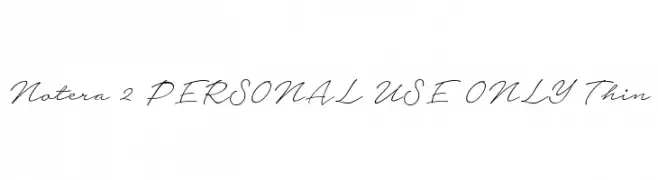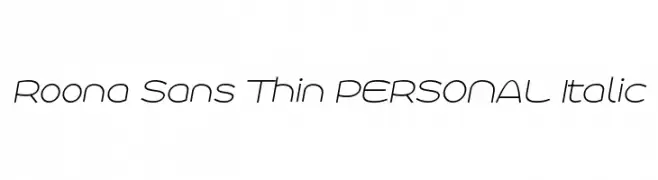
An elegant, flowing script font with a natural handwriting style.
A bold, angular font with a modern, stencil-like design.
A modern, light sans-serif font with geometric influences and a clean, minimalist design.
A sleek, thin, and modern sans-serif font with an italicized style.
A bold, modern sans-serif font with rounded geometric characters.
A modern, italic sans-serif font with smooth curves and a medium weight.
A sleek, modern, light, and italic sans-serif font with dynamic character shapes.
A modern, bold, and italicized font with a sleek and geometric design.
A modern, thin, and minimalist font with geometric forms.
A modern, geometric sans-serif font with a sleek and minimalistic design.